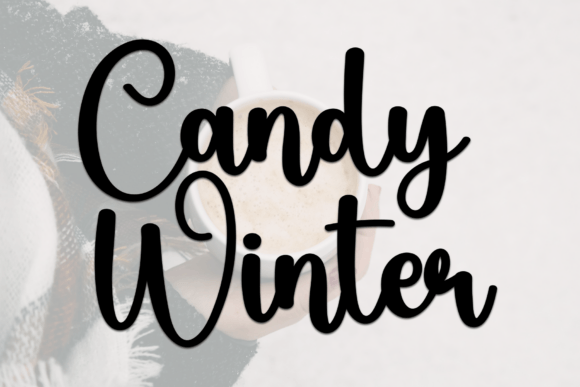
Get Ready to Add a Pop of Fun to Your Designs
Who else has ever found themselves doodling in the margins of a notebook, letting their imagination run wild with colorful markers and bold lines? That’s exactly the kind of creative freedom that the Candy Winter Font embodies.
This playful script font is designed to make a statement, with its bold, marker-drawn aesthetic that’s perfect for adding a sporty, casual vibe to your text. Whether you’re working on a project that needs a little extra flair or simply want to add some personality to your social media posts, the Candy Winter Font is a valuable tool for designers looking to make their work stand out.
Candy Winter Font Key Features
- Font Family: Candy Winter Font
- Unique Characteristics: Hand-drawn, cursive, and playful design; suitable for winter and holiday-themed projects, such as greeting cards, gift tags, and advertisements.
- Font Style: Script, Handwritten
- Language Support: Multilingual support for Latin-based languages
Candy Winter Font Review
Overall, I think Candy Winter Font is a delightful addition to any winter-themed project. The designer has done a great job of capturing the magic of the season with this font. ✨
- Cute and playful design that’s perfect for festive projects
- Well-executed use of bold and thin strokes to create a sense of depth
- Great for titles, headings, and short text passages where you want to add some festive flair
One thing I appreciate about this font is its versatility. It can be used for a variety of winter-themed projects, from holiday cards to social media graphics. ✨
- May not be suitable for body text due to its playful and decorative nature
- Lack of extensive character set and language support
- May not be ideal for formal or professional projects due to its whimsical design
Overall, I think Candy Winter Font is a great choice for anyone looking to add some festive flair to their projects. While it may have some limitations, its unique design and versatility make it a great addition to any designer’s toolkit.
Tips for Getting the Most Out of the Candy Winter Font
Use the Candy Winter Font to add a touch of whimsy and playfulness to your designs. Experiment with different font sizes, colors, and styles to create unique and eye-catching effects.
The Candy Winter Font is perfect for:
- Winter-themed designs and decorations.
- Food and drink labels and packaging.
- Christmas and holiday-themed designs.
Alternatives to Candy Winter Font for Designers
Ostrich Sans is a sans-serif font known for its playful, modern feel. It’s ideal for use in headings and titles where a fun, casual vibe is desired. In comparison to Candy Winter Font, Ostrich Sans has a more geometric shape and is often used for digital and online content.
Great Vibes is a script font that conveys a sense of elegance and sophistication. It’s suitable for use in invitations, wedding stationery, and other high-end designs where a touch of luxury is desired. Unlike Candy Winter Font, Great Vibes has a more refined, cursive feel that adds a sense of drama to any design.
Playfair Display is an elegant, high-end serif font that’s perfect for use in luxury brands and high-end designs. It’s ideal for use in headings, titles, and body text where a sense of sophistication and refinement is desired. In comparison to Candy Winter Font, Playfair Display has a more traditional, classic feel that adds a touch of elegance to any design.
Lato is a modern sans-serif font that’s highly legible and versatile. It’s suitable for use in a wide range of designs, from corporate branding to digital content. Unlike Candy Winter Font, Lato has a more minimalist, clean feel that makes it ideal for use in designs where simplicity and clarity are desired.
Winter Wonderland Projects
Project 1: Candy Winter Wonderland Invitation
Create a whimsical and festive invitation for a winter wonderland-themed party or event. The Candy Winter Font is perfect for adding a touch of sweetness to your invitation design.
How to use Candy Winter Font:
- Use the font for the main title of the invitation, such as “Winter Wonderland” or “Sweetest Season”.